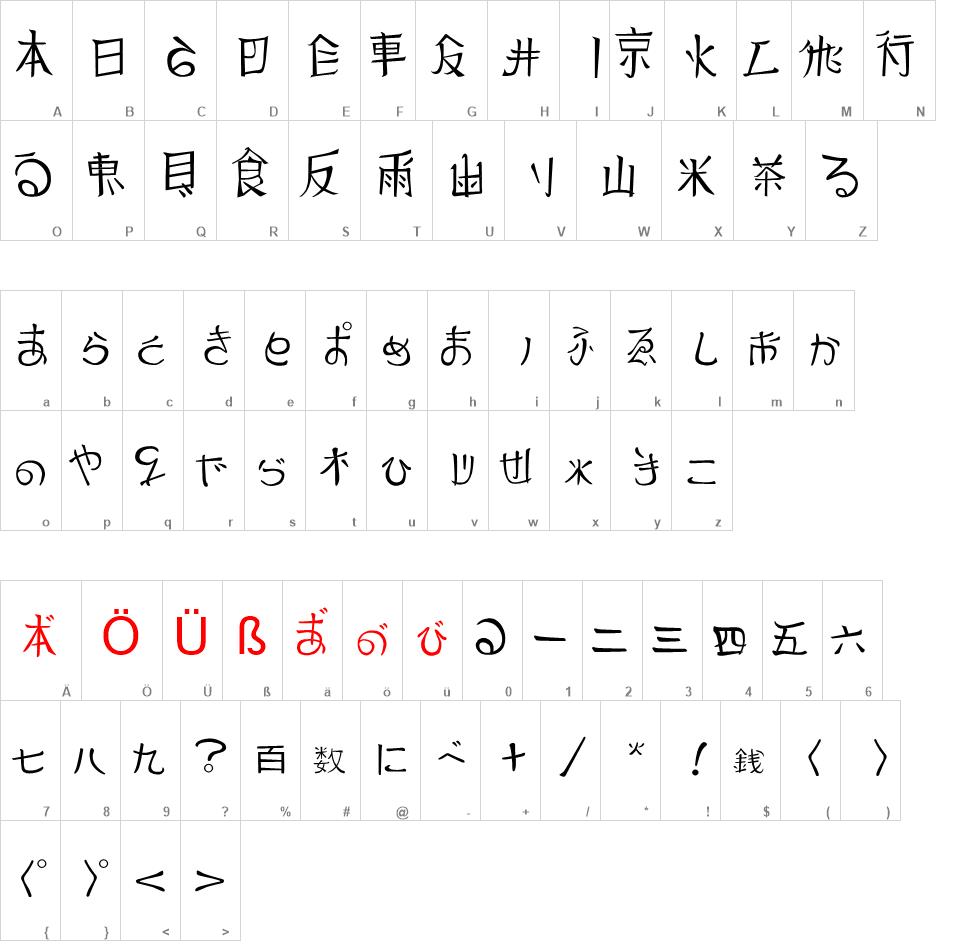
Reading From The East
Reading From The East font
Youkoso irasshai mashita!
This is a font I designing to look like written Japanese at a glance, but still be read like English. It includes full lowercase letters (based on the Hiragana alphabet), full uppercase letters (based on various Kanji), full punctuation, numbers, and many accented letters and other symbols.